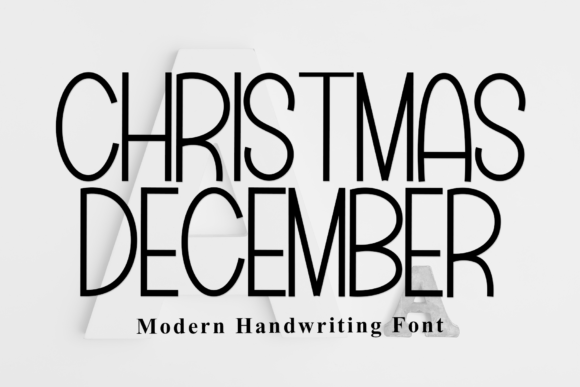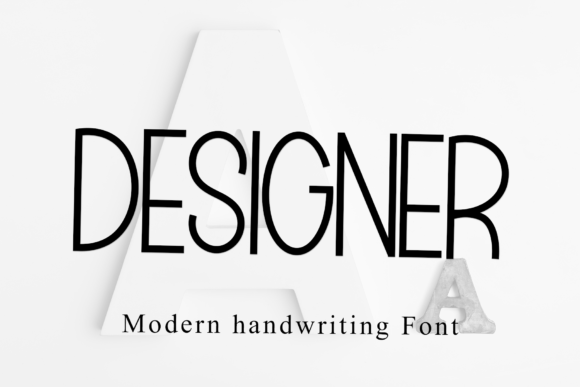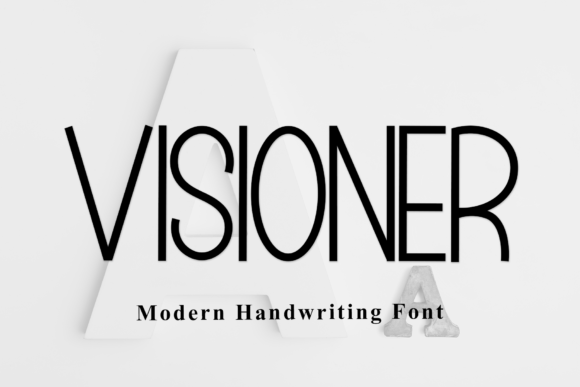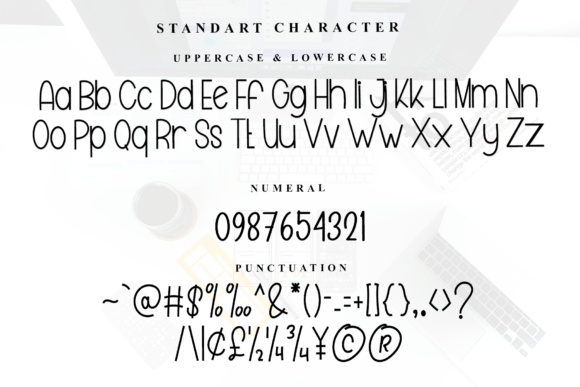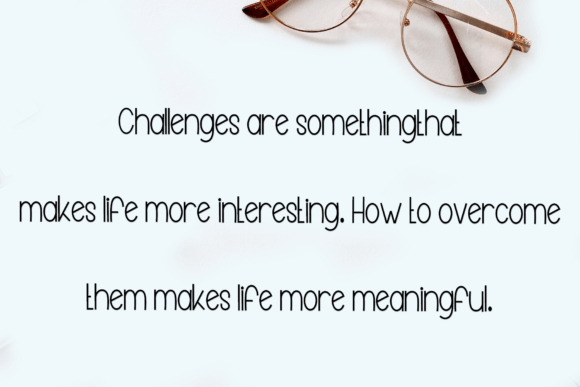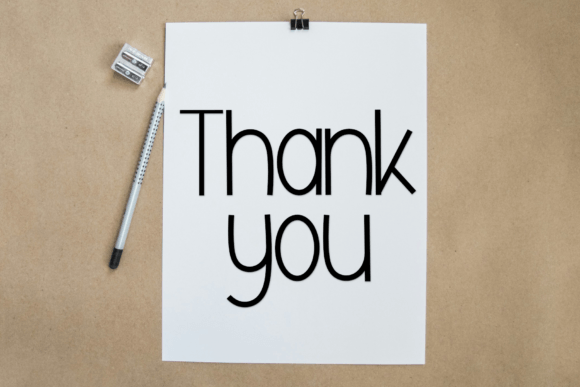
Discover the Elegance of Black Latter Font: Elevate Your Designs with Timeless Style
In the realm of typography, few fonts manage to capture the essence of elegance and timelessness as effectively as the Black Latter Font. This lovely display font has emerged as a favorite among designers and crafters alike, and for good reason. Its unique blend of classic charm and modern appeal makes it the perfect choice for creating eye-catching logos, branding materials, and inspirational quotes that stand out from the crowd.
The Unique Charm of Black Latter Font
What sets Black Latter Font apart from other display fonts is its distinctive and beautiful touch. Every letter in this font has been carefully crafted to bring a sense of uniqueness and style to your designs. Whether you’re working on a logo, a branding project, or a set of quotes, Black Latter Font adds a layer of sophistication and elegance that elevates your work from ordinary to extraordinary.
Purpose-Built for Designers and Crafters
Black Latter Font is more than just a pretty face; it’s a versatile tool designed with the needs of designers and crafters in mind. Its PUA (Private Use Area) coding is a game-changer, allowing for easy access to all the amazing glyphs and ligatures that make this font so special. This means you can effortlessly incorporate the intricate details and flourishes that bring your designs to life, without the hassle of complicated font management.
Applications of Black Latter Font
The versatility of Black Latter Font makes it suitable for a wide range of applications. Here are just a few ways you can use this stunning font to enhance your projects:
- Logo Design: Create memorable and impactful logos that set your brand apart.
- Branding: Consistency is key in branding, and Black Latter Font helps you maintain a cohesive visual identity across all your materials.
- Quotes and Posters: Add a touch of elegance to your inspirational quotes and posters, making them more engaging and shareable.
- Packaging: Stand out on crowded store shelves with eye-catching packaging that leverages the unique style of Black Latter Font.
Why Choose Black Latter Font?
With so many fonts available to designers and crafters, what makes Black Latter Font the best choice for your projects? Here are a few compelling reasons:
- Timeless Appeal: Unlike trendy fonts that quickly go out of style, Black Latter Font boasts a timeless quality that ensures your designs remain relevant for years to come.
- Ease of Use: Thanks to its PUA coding, you can easily access and use all the font’s features, saving you time and hassle.
- Versatility: From logos and branding to quotes and packaging, Black Latter Font adapts seamlessly to various design needs.
- Unique Style: The font’s distinctive style ensures your designs stand out in a crowded marketplace.
Black Latter Font is more than just a display font; it’s a tool for designers and crafters looking to add a touch of timeless elegance to their work. With its unique style, PUA coding for easy access to glyphs and ligatures, and versatility across various applications, it’s an excellent choice for anyone aiming to create eye-catching logos, branding materials, and quotes. Discover the difference Black Latter Font can make in your designs and take your projects to the next level with its distinctive charm and appeal.